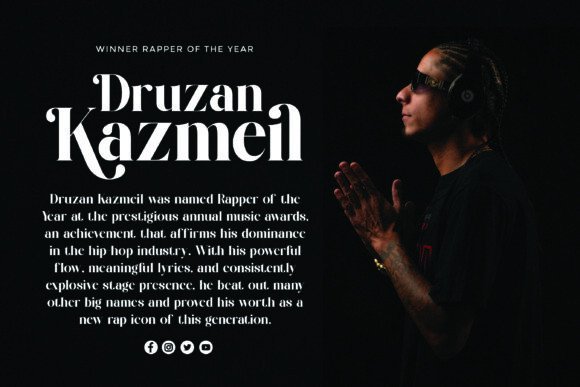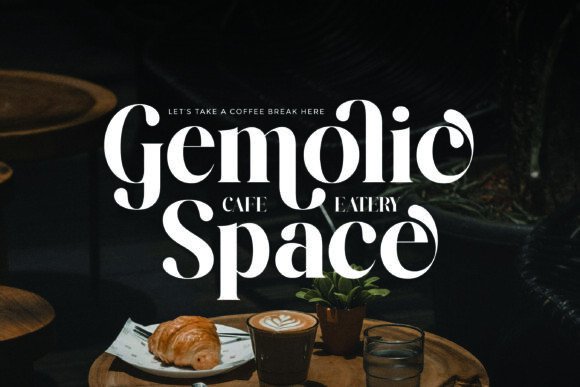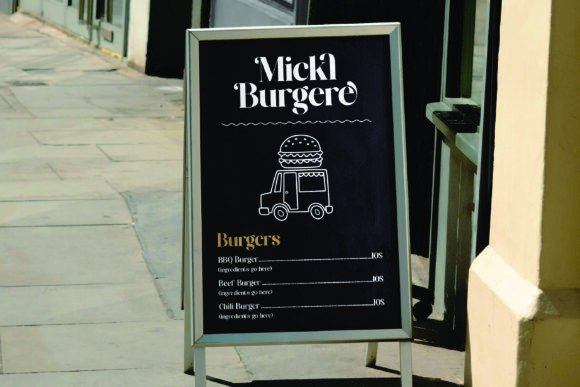
Introduction to Renshie Font
Renshie is a bold and stylish retro serif typeface designed to bring a touch of nostalgic charm and timeless sophistication to your creative projects.
With its elegant curves, high-contrast strokes, and playful yet refined letterforms, Renshie captures the spirit of vintage design while remaining versatile for modern use With PUA encoding included, all special characters and decorative elements are easily accessible without additional software.